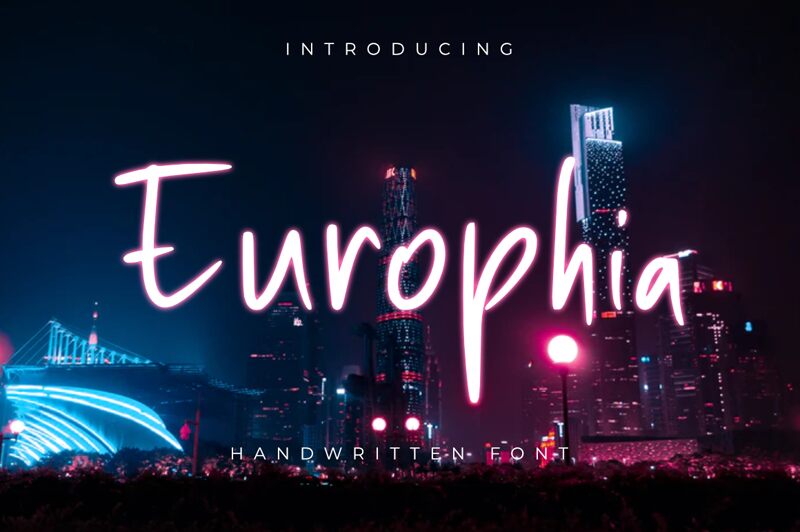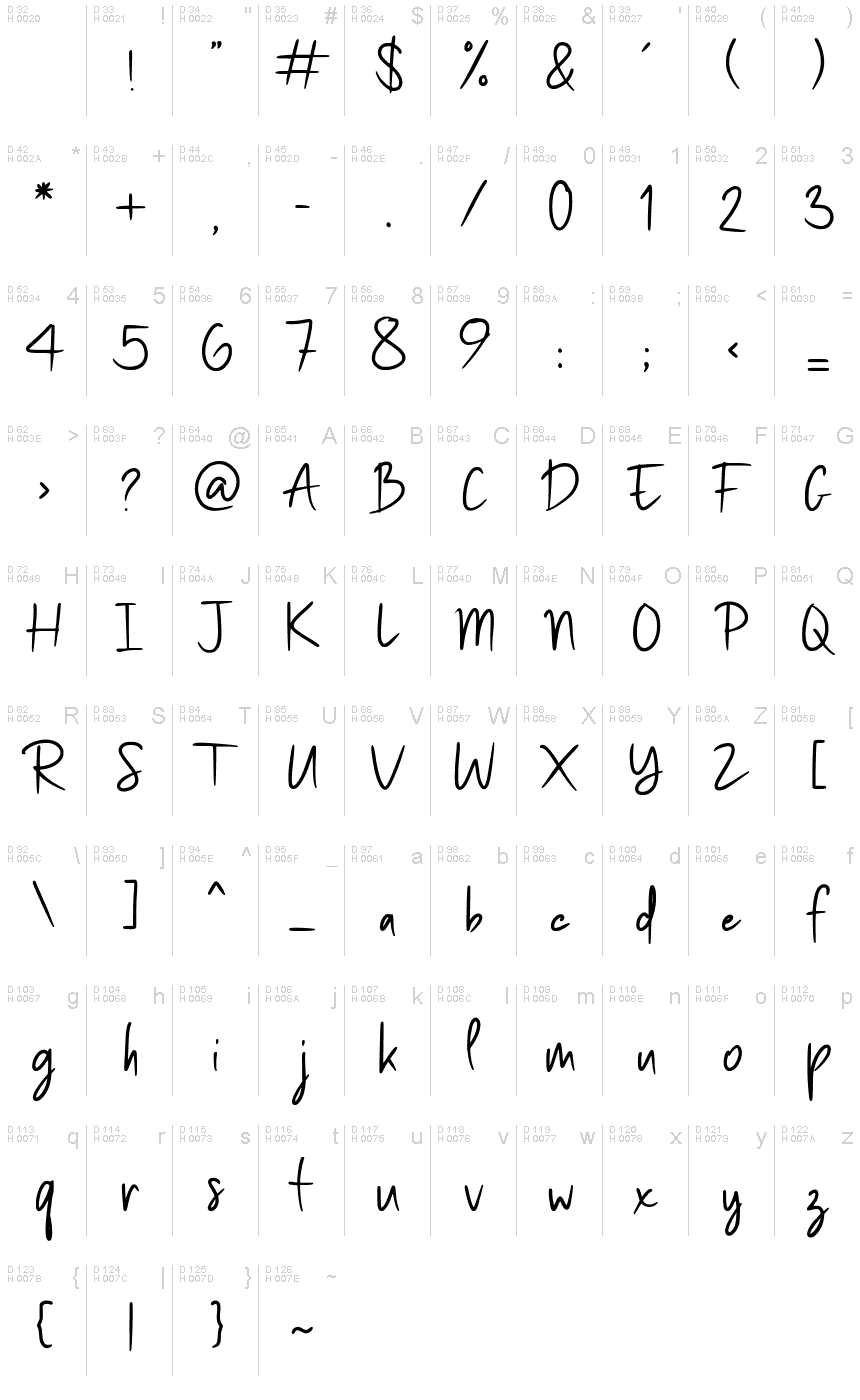
Europhia
Inspired by old-world calligraphy, Europhia is a light and graceful script font created by Masyafi Studio. Its elegant handwritten style is perfect for creating beautiful logos, wedding invitations, and other romantic projects.